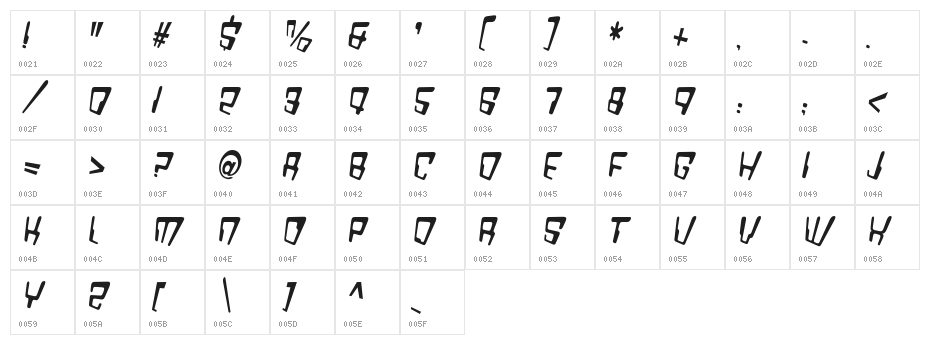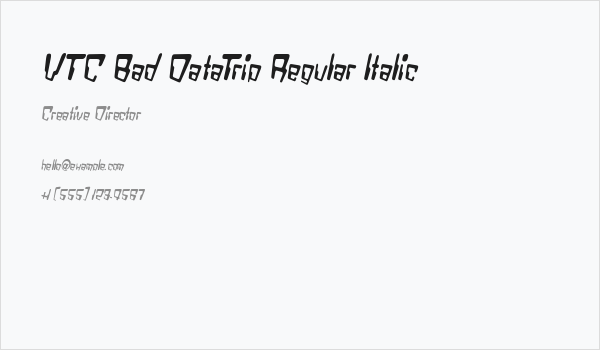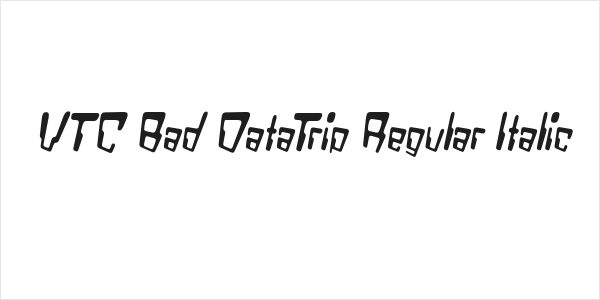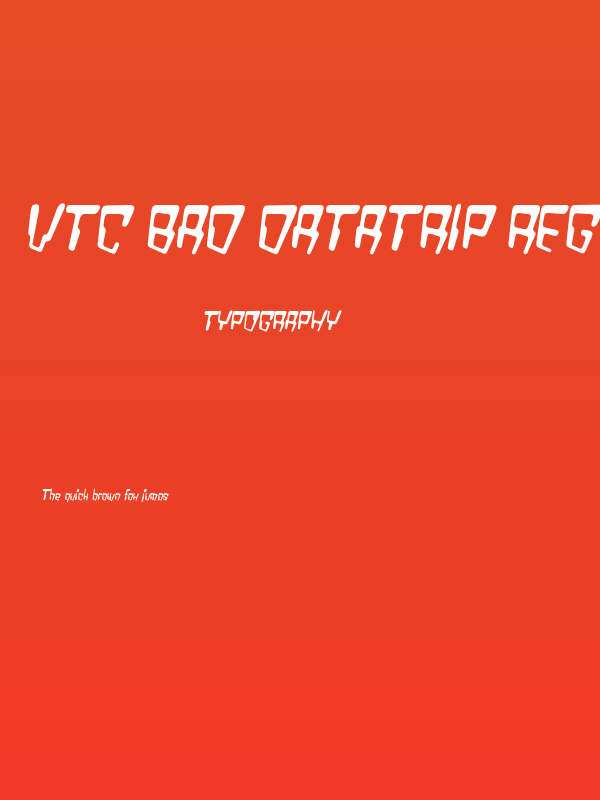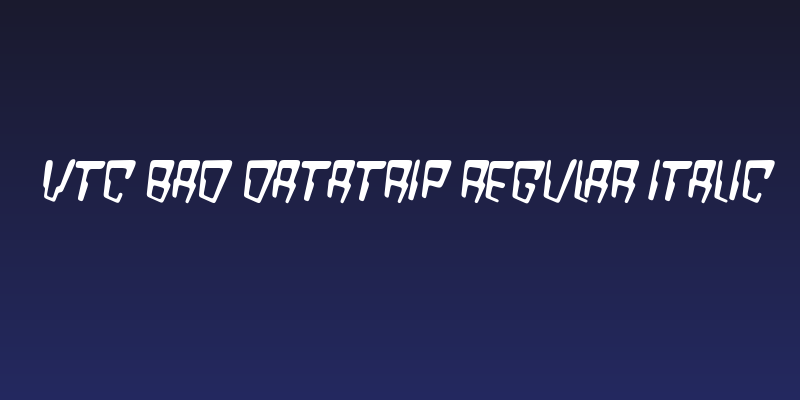
VTC Bad DataTrip Regular Italic Font
VTC Bad DataTrip Regular Italic Description
This font features a futuristic and edgy design, characterized by its angular and geometric letterforms. The characters are slightly slanted, giving it an italicized appearance, while maintaining a bold and assertive presence. The uppercase and lowercase letters share a consistent style, with sharp edges and a unique, almost stencil-like quality. Numbers and special characters follow the same design principles, ensuring a cohesive look across all elements. The font's distinct style makes it stand out, suitable for projects that require a modern and unconventional aesthetic.
| Overall Style | Futuristic, Edgy |
| Proposed Projects | Ideal for sci-fi themed designs, video game graphics, tech branding, and edgy poster art. |